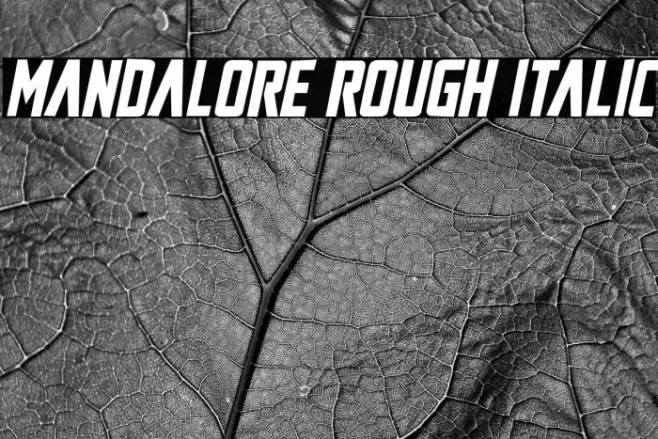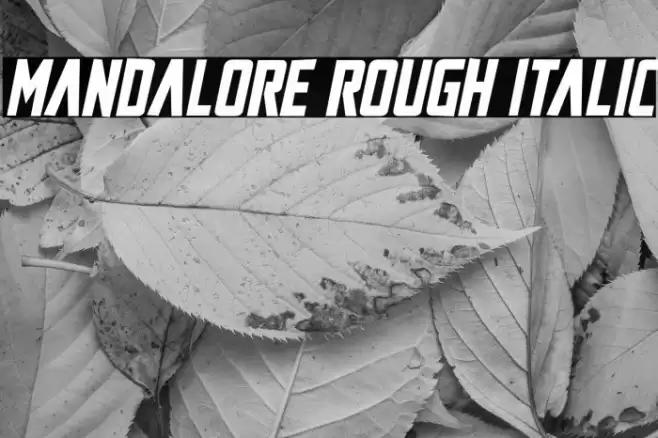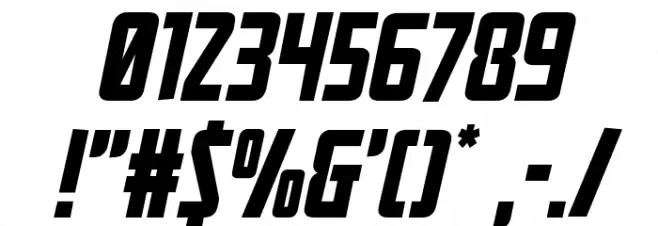
Mandalore Rough Italic Font
Mandalore Rough Italic Description
This font features a bold and dynamic style with a distinct italic slant, giving it a sense of movement and energy. The characters are angular and geometric, with sharp edges and a futuristic appearance. The uppercase letters are particularly striking, with a strong presence that commands attention. The numbers and special characters maintain the same bold and angular design, ensuring consistency throughout. This font is ideal for projects that require a modern and edgy look, such as sci-fi themed designs, video game titles, or action movie posters.
A bold, italic, and angular font with a futuristic and dynamic style from Uncategorized fonts.
- Proposed Projects: Ideal for sci-fi designs, video game titles, action movie posters, and modern branding.
- Overall Style: Futuristic